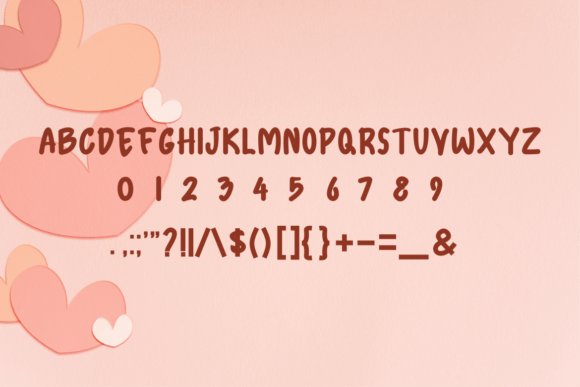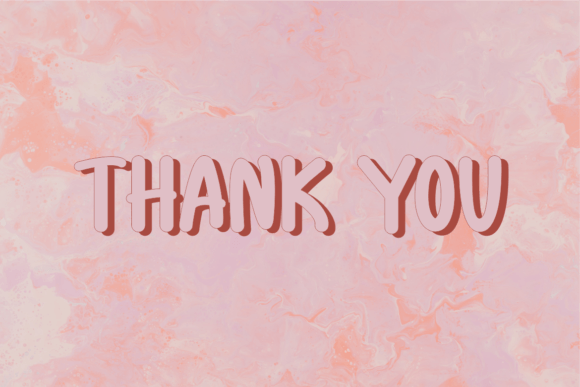
Discover the Modern Edge with Garavien Font
Have you ever been in the middle of a design project, and suddenly, it feels like something’s missing? You’re not alone. I recall working on a logo design for a trendy new coffee shop. The concept was solid, the colors were on point, but it just didn’t feel modern enough. That’s when I stumbled upon the Garavien Font, and it was a game-changer. This modern font has a unique ability to elevate your designs, making them look cooler and more contemporary.
What Makes Garavien Font Stand Out?
Garavien Font is perfect for designers, crafters, and creative hobbyists looking to add a modern twist to their projects. It’s incredibly versatile and can be used for a variety of products such as logos, t-shirts, mock-ups, banners, and more.
An Honest Review of Garavien Font
- ✨ Modern and Edgy: Garavien Font has a sleek, contemporary look that’s perfect for designs that need a bit of an edge.
- ✅ Highly Versatile: Whether you’re working on a logo, a t-shirt design, or a banner, this font adapts beautifully.
- 💡 Easy to Read: Despite its modern look, Garavien Font remains clear and easy to read, even at smaller sizes.
While Garavien Font is excellent for many projects, there are a few things to keep in mind:
- 🤔 Limited Serif Options: If you’re looking for a font with extensive serif variations, you might find Garavien Font a bit limited.
- ⚠️ Not Ideal for Body Text: While it’s great for headings and titles, Garavien Font might not be the best choice for longer body text due to its modern, edgy feel.
The Backstory of Garavien Font
Garavien Font was created with the modern designer in mind. Its designer aimed to craft a font that was not only stylish but also versatile enough to be used across various platforms and projects. The result is a font that embodies the perfect balance of modernity and readability.
| Font Name | Garavien Font |
| Author | Arto.Milli |
Q: What type of projects is Garavien Font best suited for?
A: Garavien Font is ideal for modern designs such as logos, t-shirts, mock-ups, and banners.
Q: Is Garavien Font available in different weights?
A: Yes, Garavien Font comes in various weights, making it versatile for different design needs.